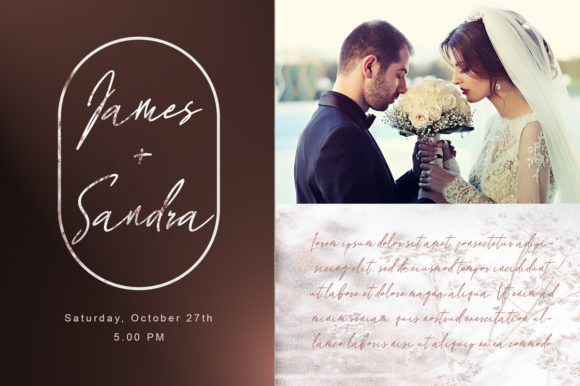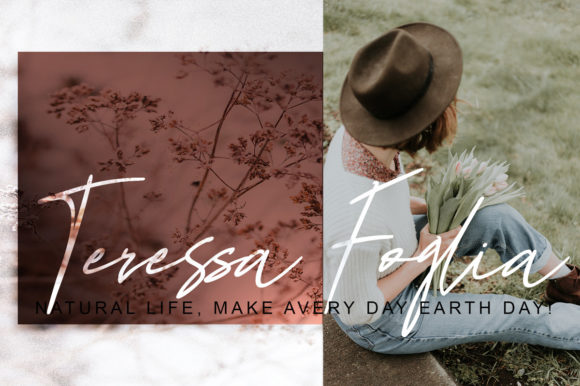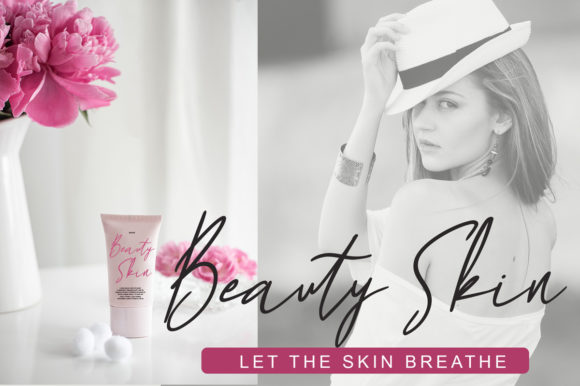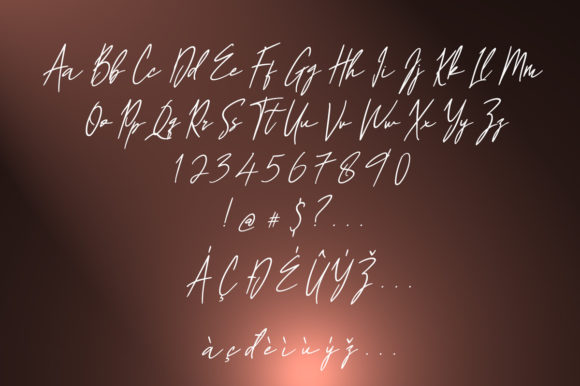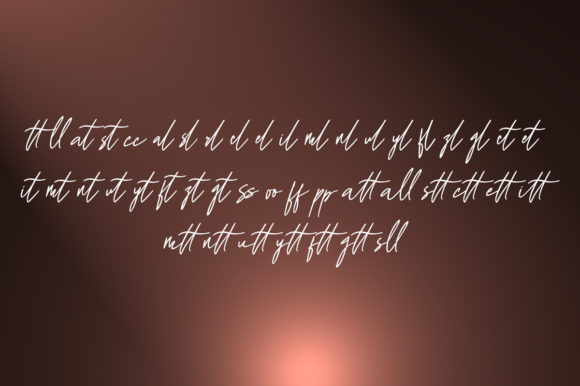
Billya Palm Font: A Charming Script Font for Your Creative Projects
Are you looking for a font that can add a touch of playfulness and elegance to your designs? Look no further than the Billya Palm font! This lovely script font features charming, playful characters that seem to dance along the baseline, making it perfect for a variety of creative projects. In this article, we’ll take a closer look at the Billya Palm font, its features, and how you can use it to take your designs to the next level.
What is Billya Palm Font?
Billya Palm is a beautiful script font that is designed to add a touch of whimsy and charm to your designs. The font features flowing, connected letters that seem to move along the baseline, creating a sense of movement and energy. The characters are playful and elegant, making it perfect for a variety of design projects, from invitations and greeting cards to logos and branding materials.
Key Features of Billya Palm Font
So, what makes the Billya Palm font so special? Here are just a few of its key features:
- Charming, Playful Characters: The font features charming, playful characters that seem to dance along the baseline. This creates a sense of movement and energy, making it perfect for designs that need a touch of whimsy.
- Ligatures and Glyphs: The Billya Palm font includes a range of ligatures and glyphs, which allow you to create complex, beautiful designs with ease.
Uses for Billya Palm Font
So, what can you use the Billya Palm font for? The possibilities are endless! Here are just a few ideas to get you started:
- Invitations and Greeting Cards: The Billya Palm font is perfect for creating beautiful, one-of-a-kind invitations and greeting cards. The playful characters and flowing connections make it ideal for special occasions like weddings, birthdays, and holidays.
- Logos and Branding Materials: The font’s elegant, playful style makes it perfect for logos and branding materials. Use it to create a unique and memorable brand identity that sets you apart from the competition.
- Signage and Displays: The Billya Palm font is also great for signage and displays. Use it to create eye-catching signs and displays that grab attention and draw people in.
Tips for Using Billya Palm Font
Here are a few tips for using the Billya Palm font in your designs:
- Experiment with Different Sizes: The Billya Palm font looks great in a variety of sizes, from large and bold to small and delicate. Experiment with different sizes to find the one that works best for your design.
- Play with Color: The font’s playful style makes it perfect for using with bright, bold colors. Experiment with different color combinations to find the one that works best for your design.
- Combine with Other Fonts: The Billya Palm font pairs well with a variety of other fonts. Experiment with combining it with other fonts to create a unique and interesting design.
| Font Name | Billya Palm Font |
| Author | FontCastle |
In conclusion, the Billya Palm font is a charming script font that is perfect for adding a touch of playfulness and elegance to your designs. With its PUA encoding, charming characters, and range of ligatures and glyphs, it’s the perfect choice for a variety of creative projects. Whether you’re a designer, crafter, or DIY enthusiast, the Billya Palm font is sure to become a favorite in your collection.